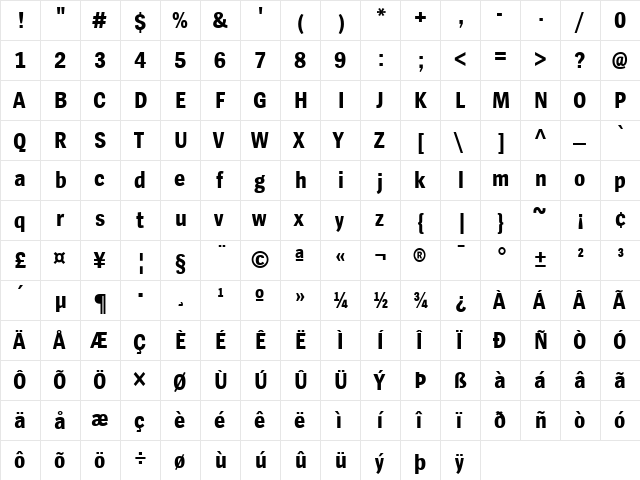
SpiegelCd Bold
Design Context for SpiegelCd Typeface
SpiegelCd is a composed and adaptable typeface that performs quietly and consistently across a wide range of design contexts. The heavy weight commands attention and anchors typographic hierarchies.